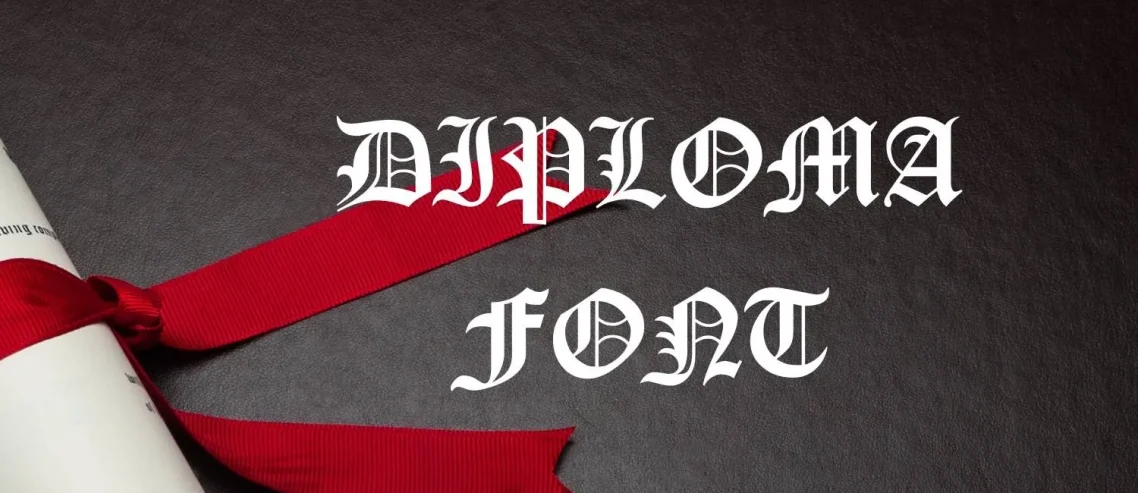
Diploma font is a very beautiful and luxurious typeface that gained very much popularity these days. This typeface belongs to a Gothic family. This font is manufactured by a very well designer named Vincent Connare.
View of Diploma Font
Diploma Font Info
| Name | Diploma Font |
| Designer | Vincent Connare |
| Style | Gothic |